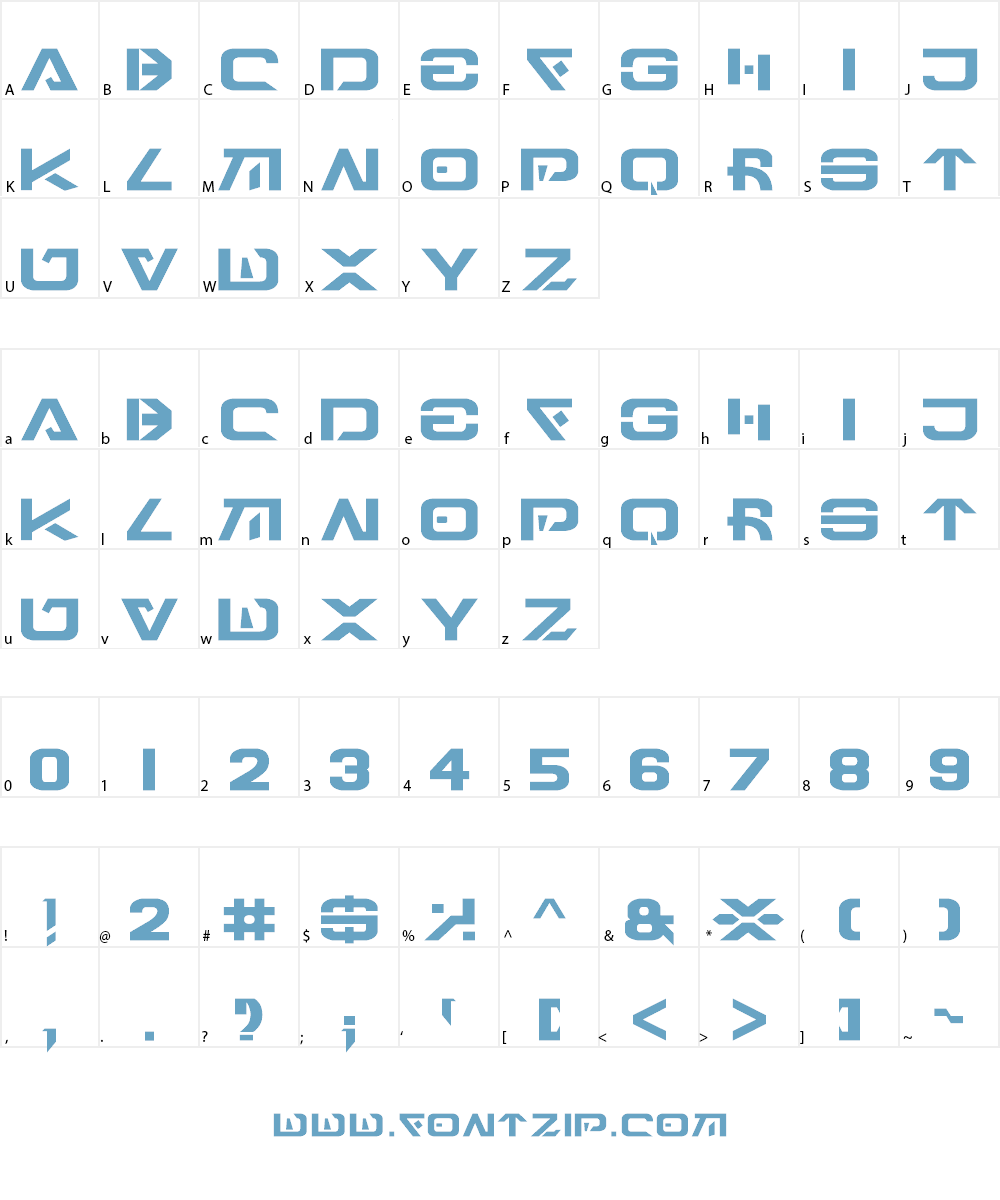
This font is an English version of the Star Wars alphabet known as "Aurebesh" or "Aurek-Besh". After doing research for my Galactic Basic font, I noticed several similarities between the English alphabet and Aurebesh. I figured this font would be a good way to spice up good ole English with a touch of Star Wars. This font might be useful for someone making a fanfilm who wants to give their text that Aurebesh look but still have readable English.